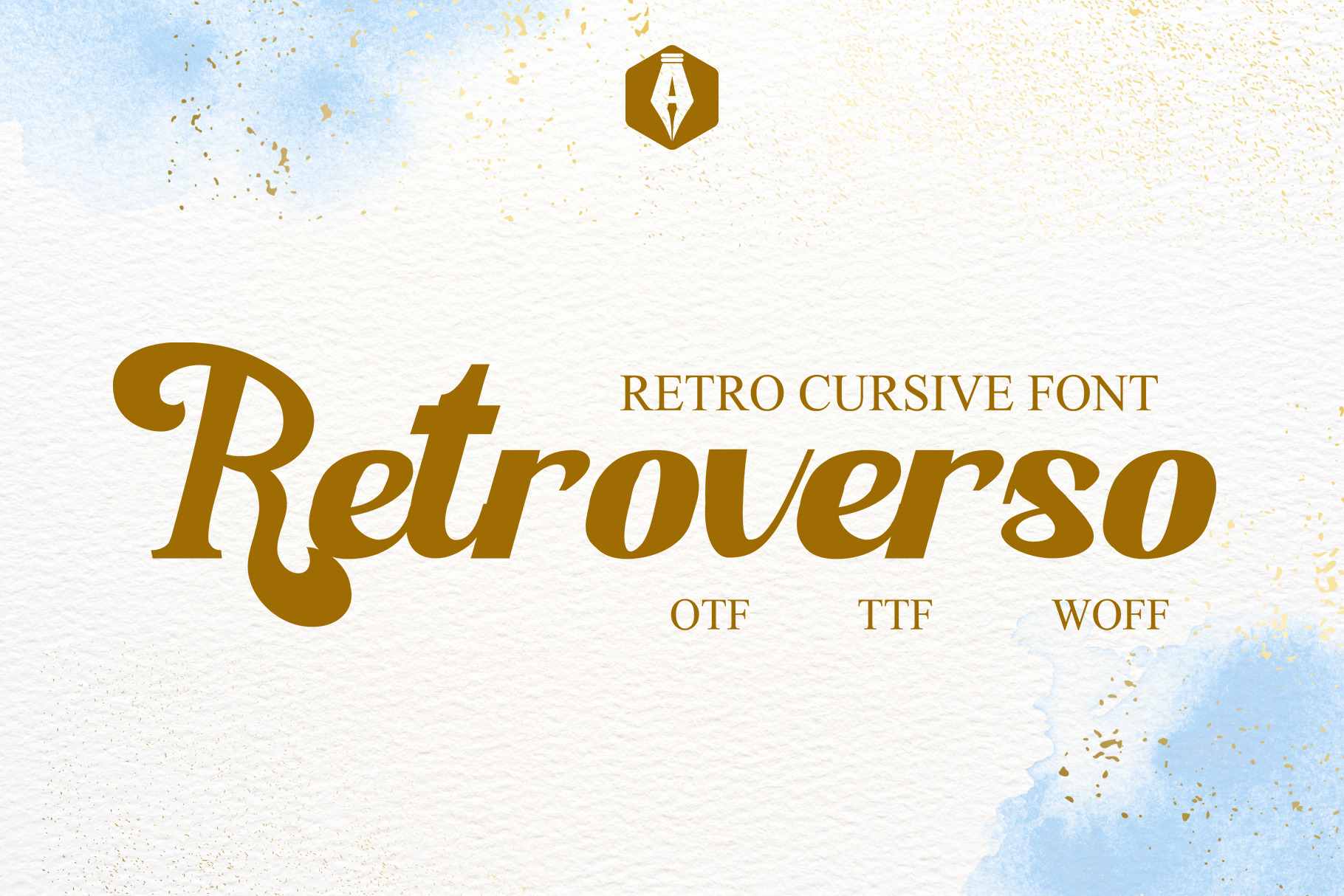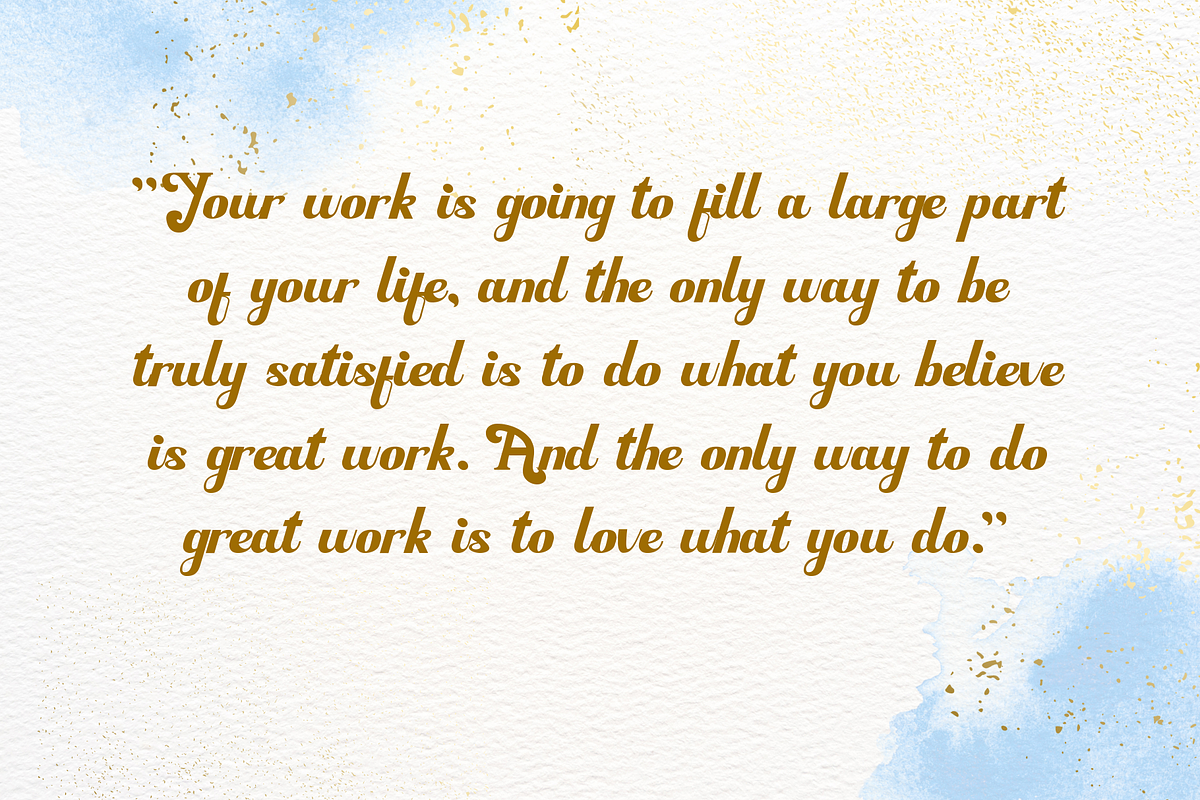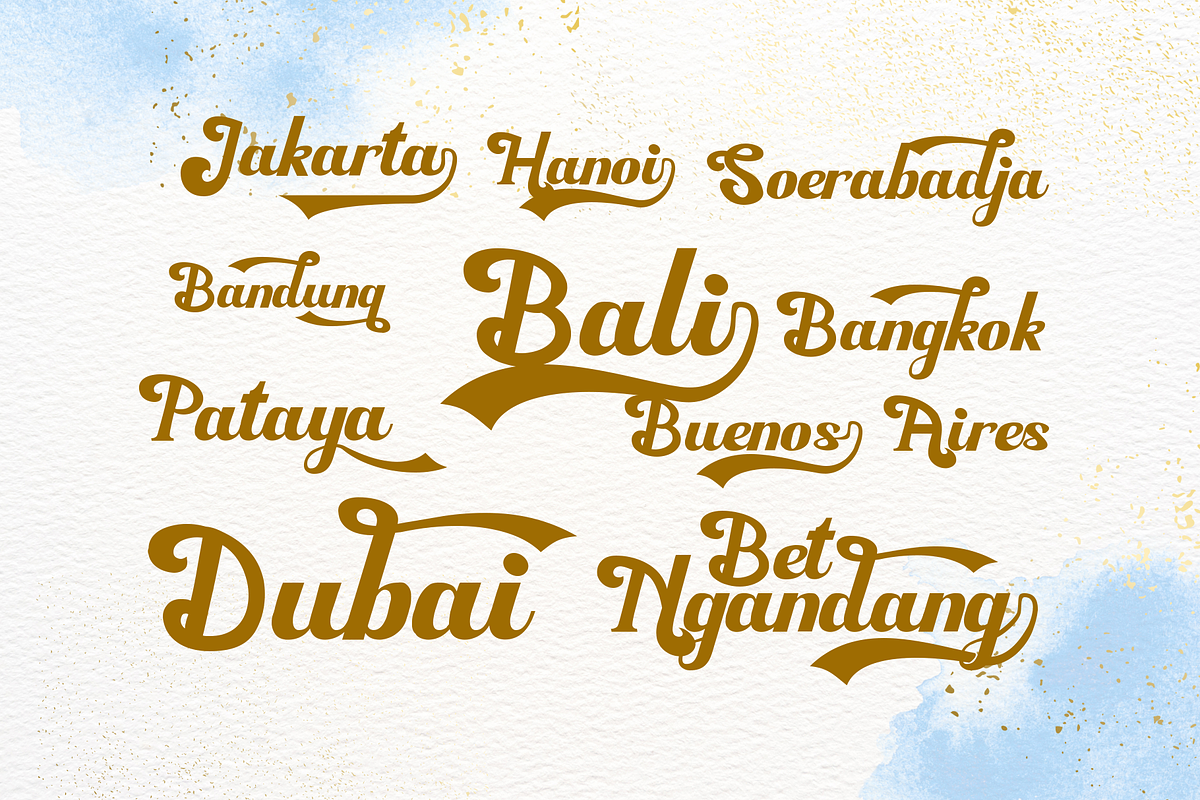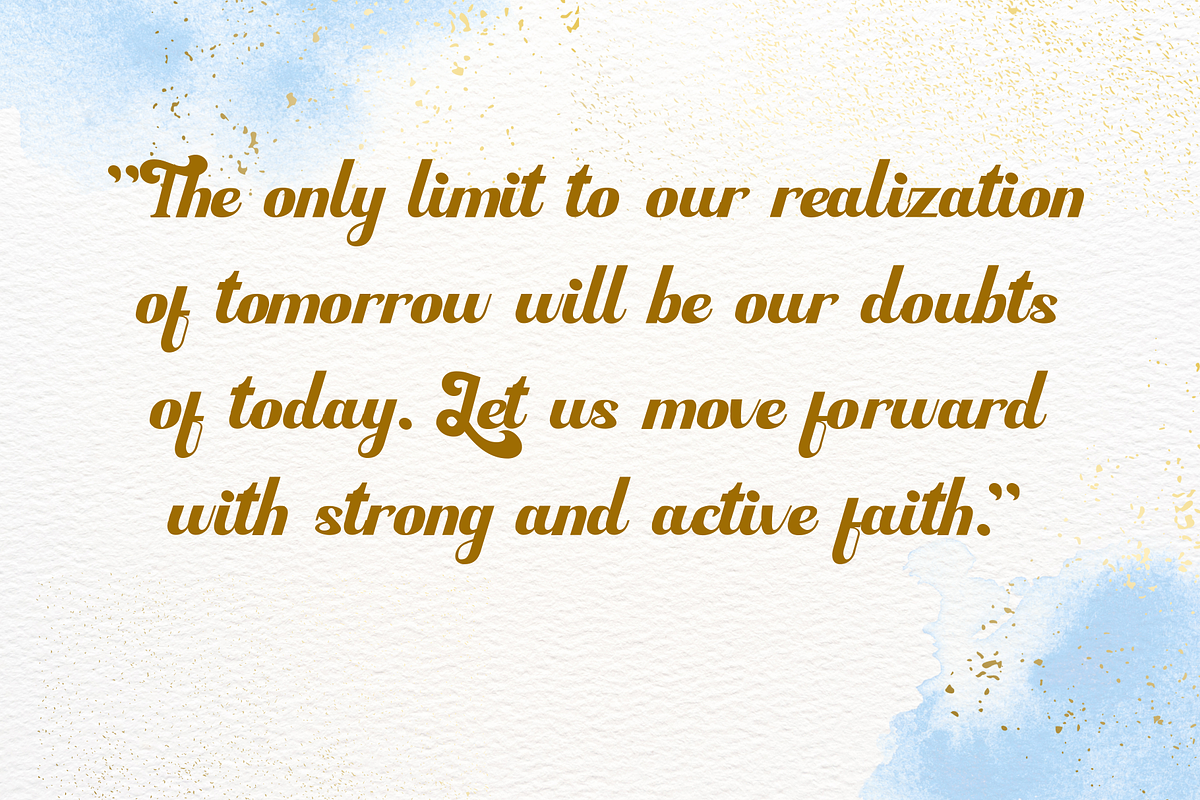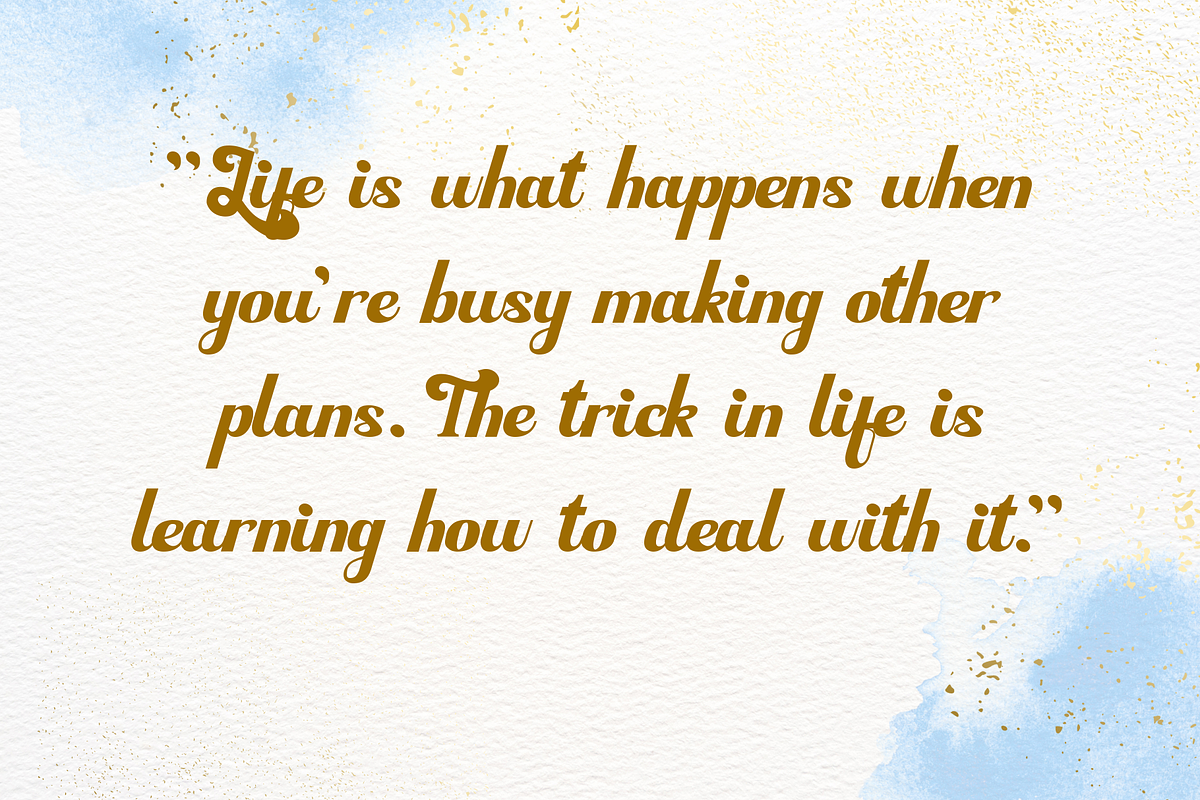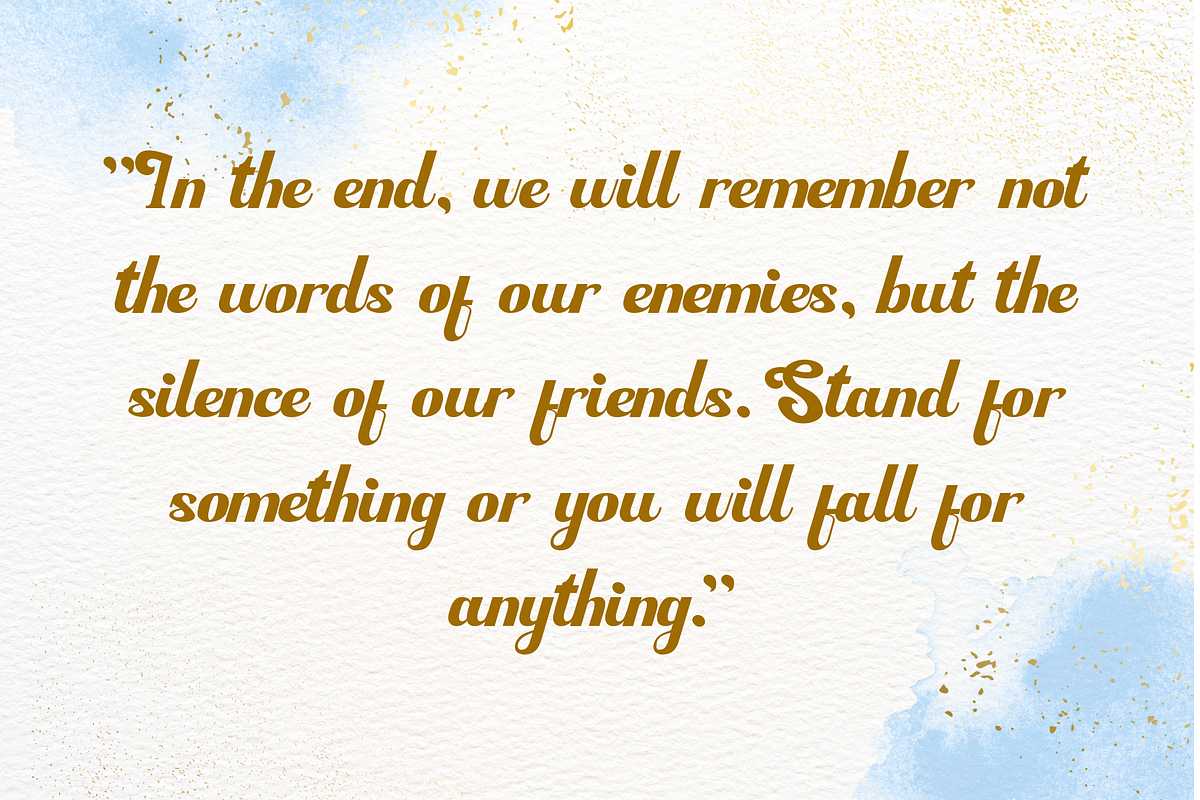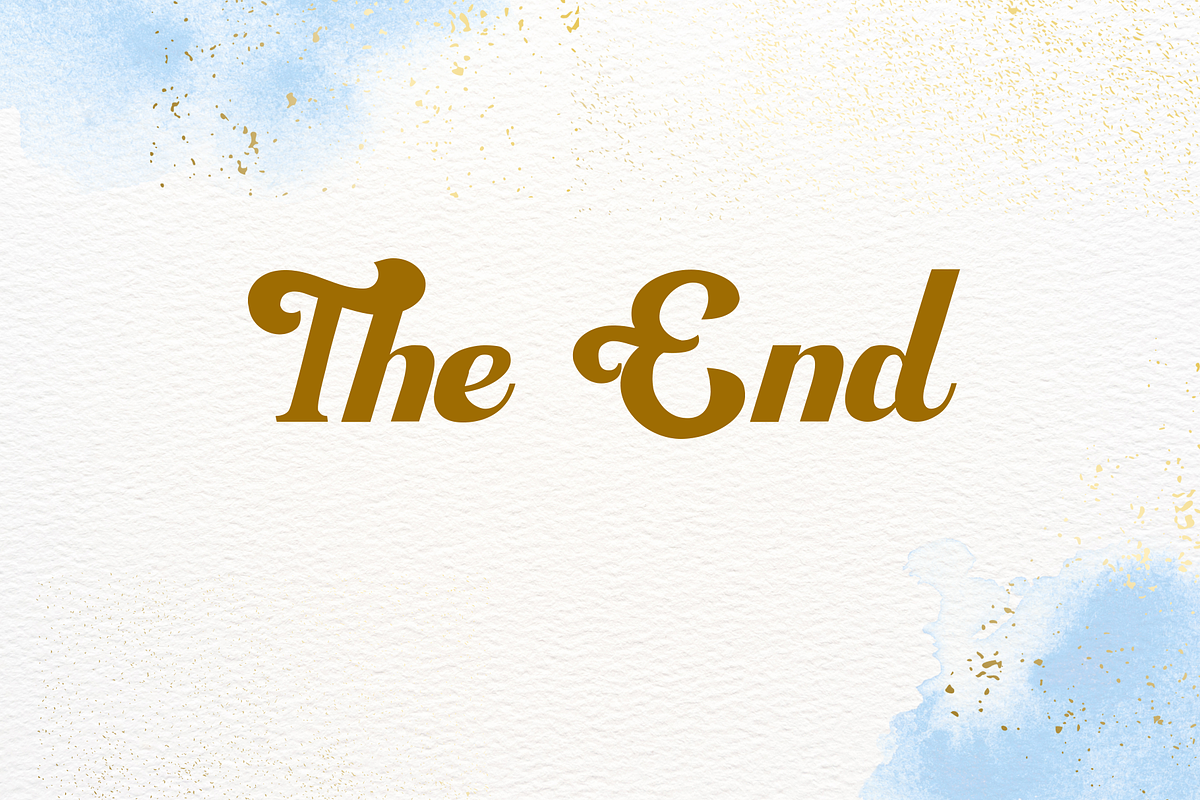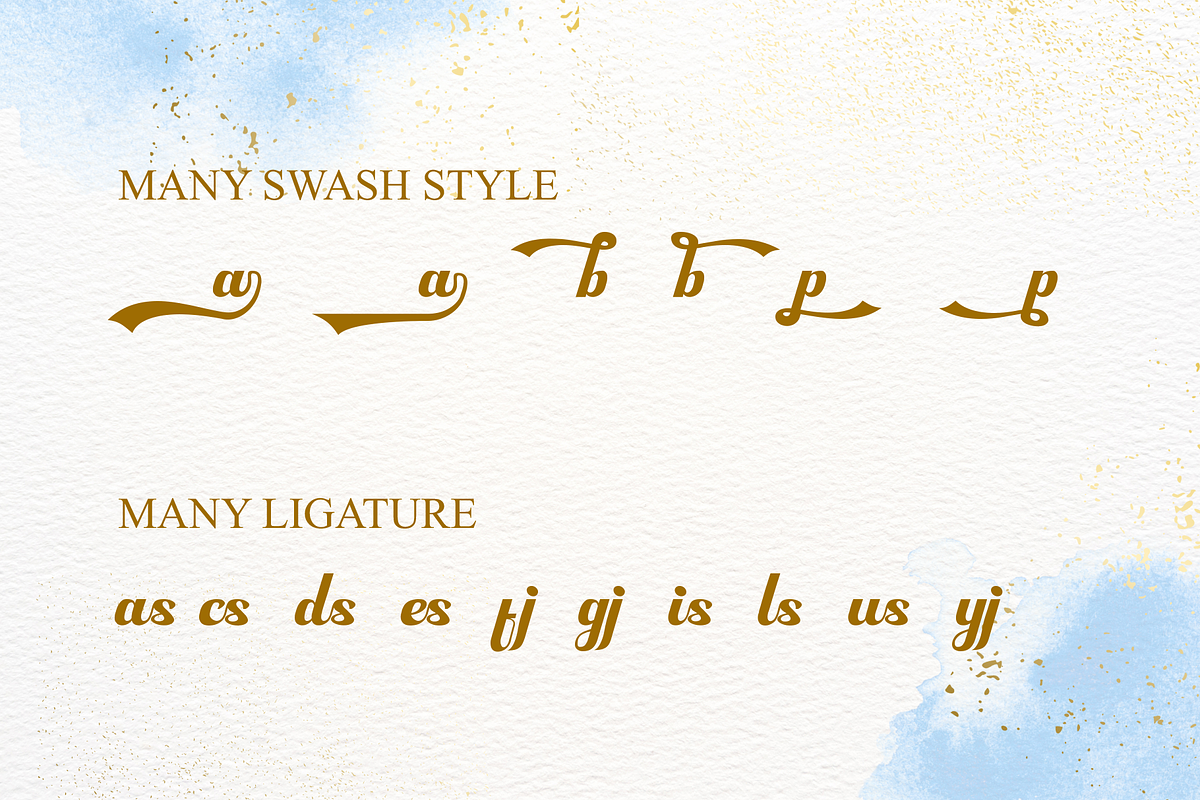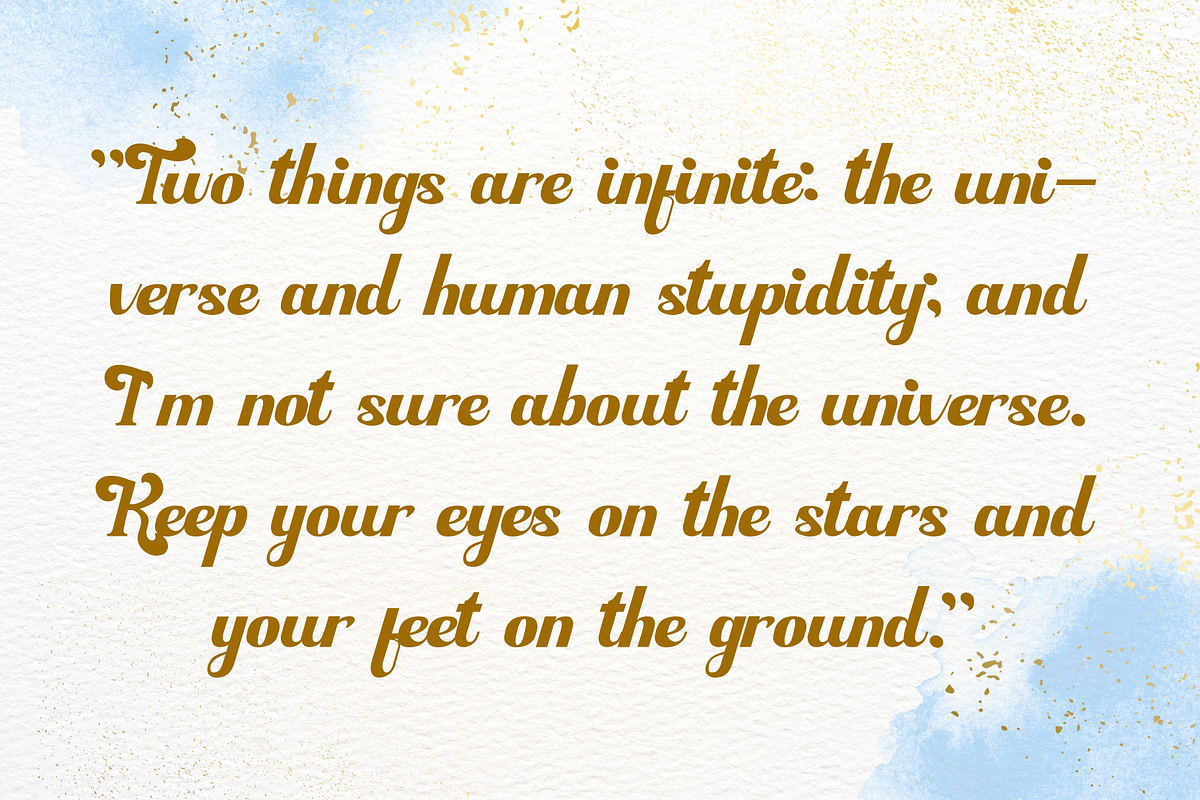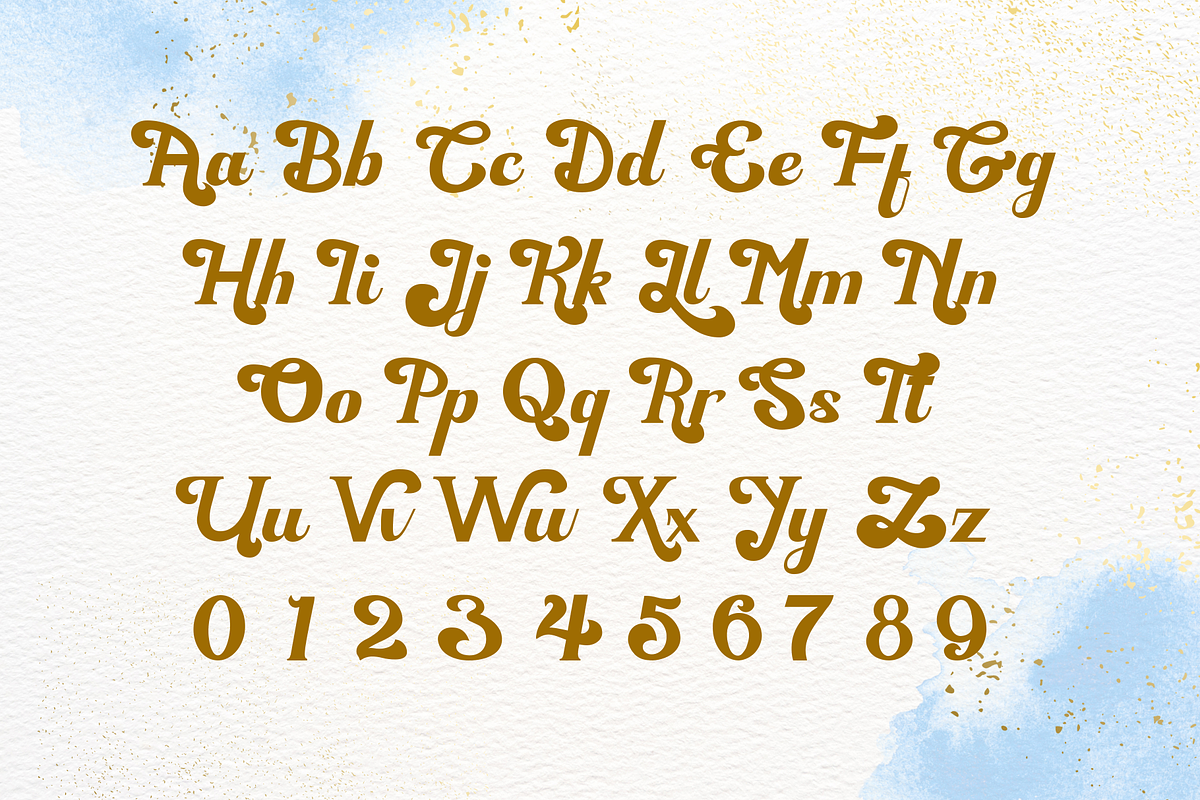
Retroverso Cursive Vintage Typeface
Retroverso Cursive Vintage Typeface transports typography enthusiasts and design aficionados to an era of timeless elegance with its enchanting blend of cursive charm and vintage aesthetics. This meticulously crafted typeface captures the essence of classic handwritten script, infusing it with a nostalgic vibe that harks back to the golden age of design. Each character in Retroverso exudes a sense of graceful fluidity, carefully curated to evoke the elegant penmanship of a bygone era, making it the perfect choice for projects that demand a touch of sophistication and a nod to the past.
The attention to detail in Retroverso is evident in every swash, loop, and serif, creating a cohesive and visually pleasing typeface that exudes character and personality. The cursive nature of the script adds a layer of warmth and authenticity, making Retroverso ideal for a variety of vintage-themed designs, including invitations, posters, and branding materials. Whether used sparingly for a subtle retro touch or prominently as the focal point of a design, Retroverso Cursive Vintage Typeface brings a sense of refinement and nostalgia to any project it graces.
What sets Retroverso apart is not just its aesthetic appeal but also its versatility. The typeface seamlessly integrates into a myriad of design contexts, offering a harmonious balance between readability and artistic flair. Designers and creatives alike will find in Retroverso a versatile tool that effortlessly captures the spirit of yesteryears, elevating their projects with a touch of timeless class and a dash of vintage sophistication.